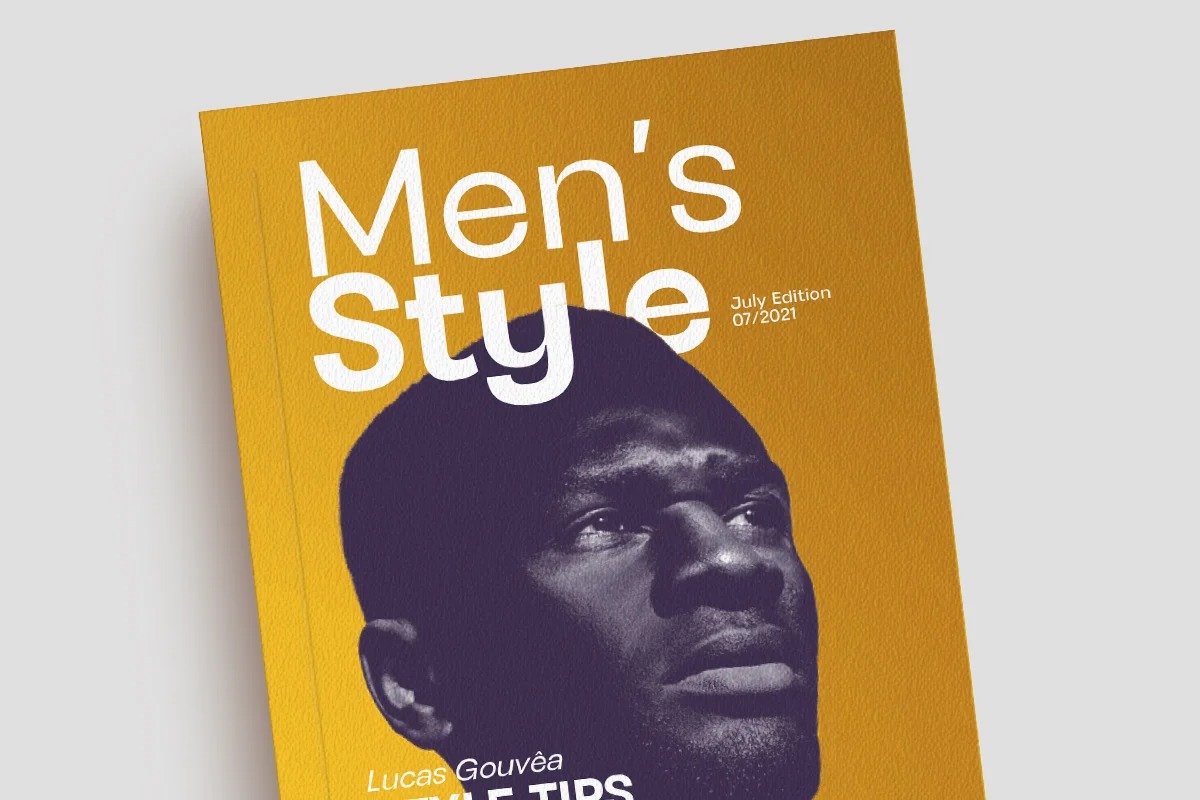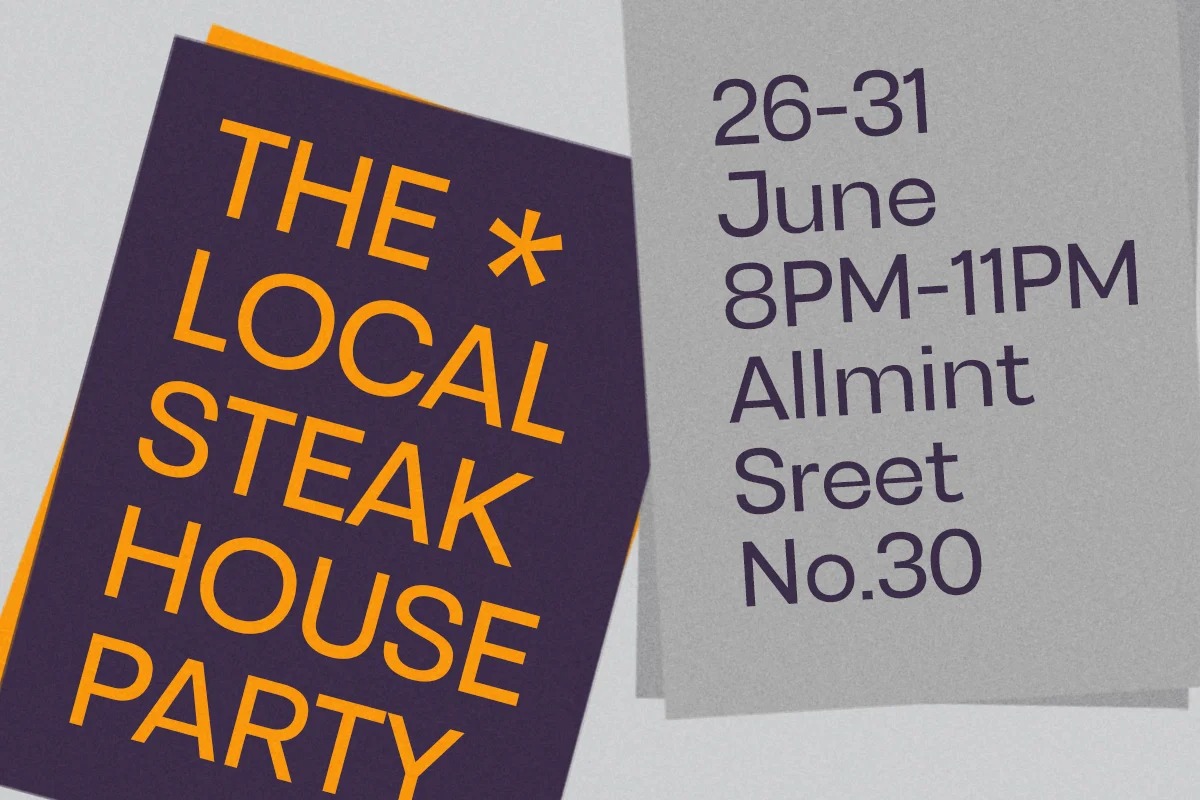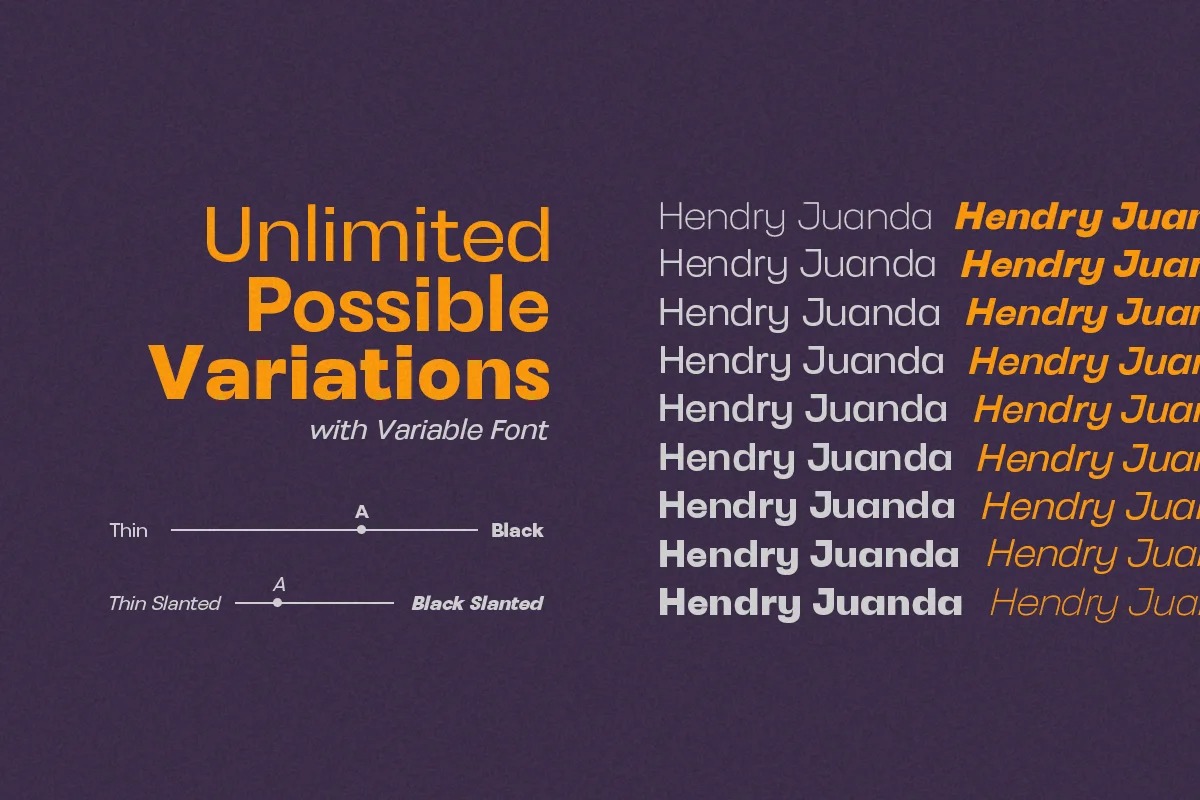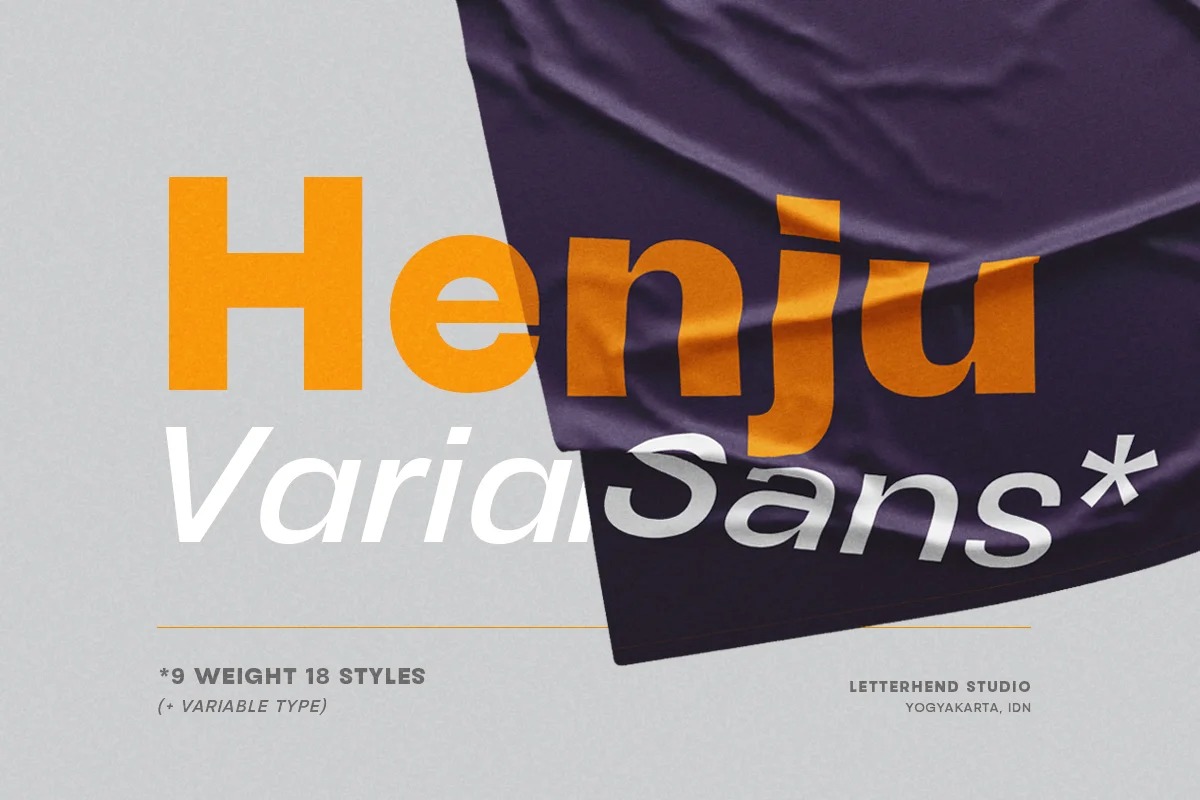
Henju Font
Henju Sans Serif Font
This font is a new contemporary sans serif, influenced by grotesque and geometric typeface letterforms. Variable that makes you create an custom width and weight aside in the available font files. Designed to use in easy with simple looks and good readability.
The typeface is versatile to blend in your design- with 9 weight, ranging from regular, medium, thin, bold, semibold, extrabold, light, extralight and black &18 styles + variable type to touch a lot of personality. Perfect anywhere you need a right finas touches for branding, publishing, titles, book, magazine , and use on UI/UX design.